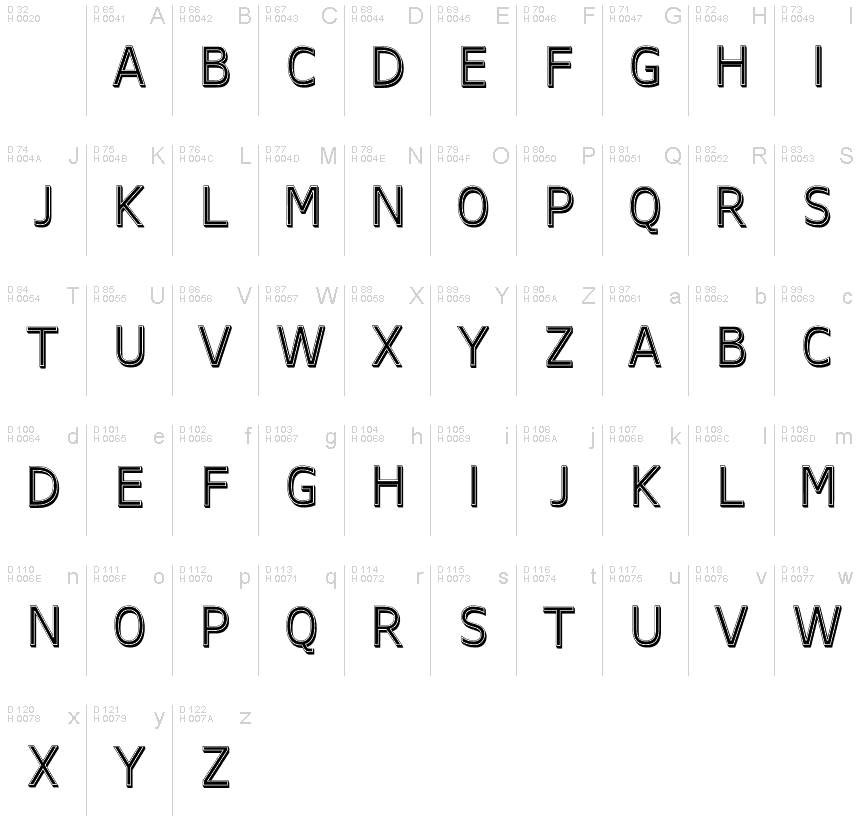
Andrea Regular
Andrea, designed by Vladimir Nikolic, is a versatile sans serif font that effortlessly blends elegance with functionality. With its semi-light weight, this font exudes a sense of sophistication and modernity. Andrea's unique embossed style adds dimension and depth to any design project.
Perfect for corporate branding, elegant invitations, fashion editorials, or modern websites seeking a touch of refinement. Let Andrea elevate your designs with its sleek lines and subtle embossed details, making a lasting impression on your audience.